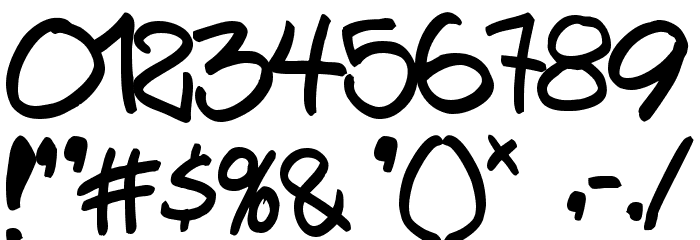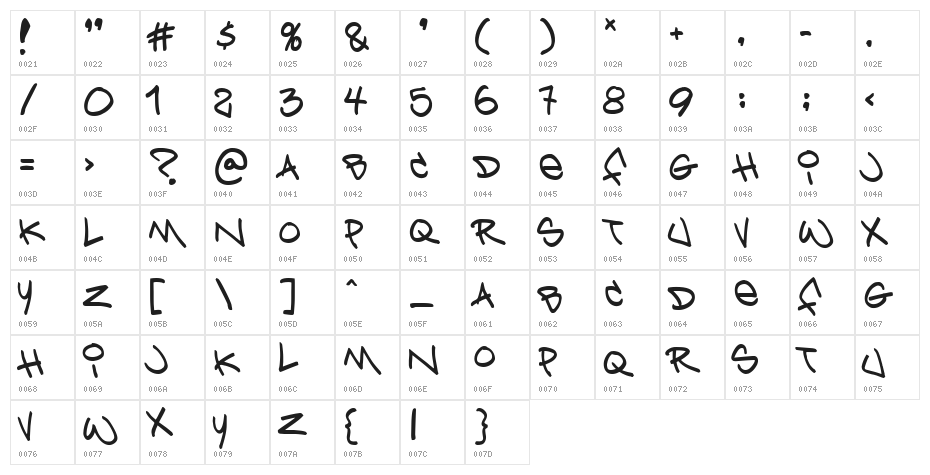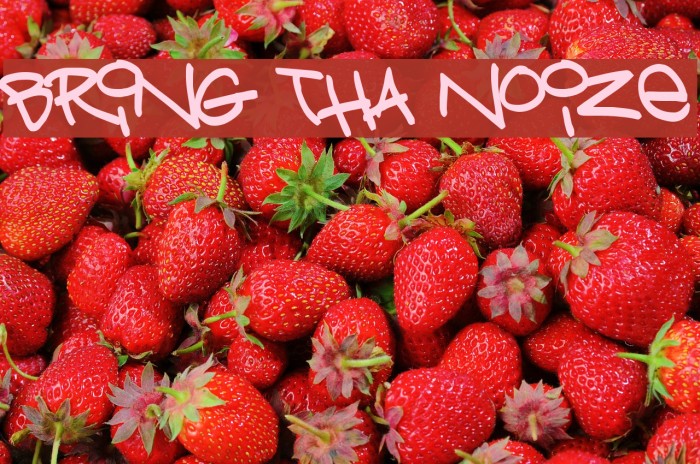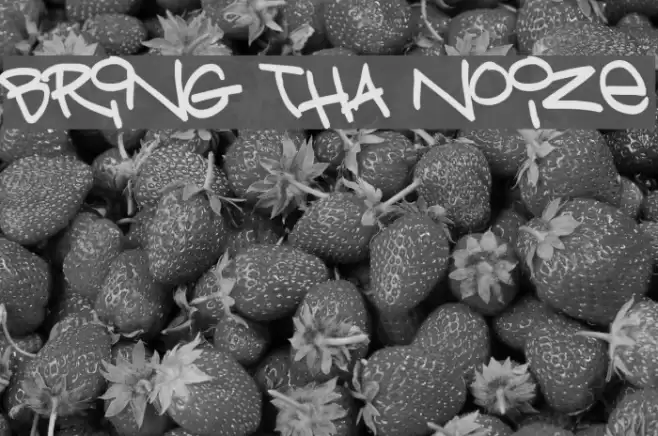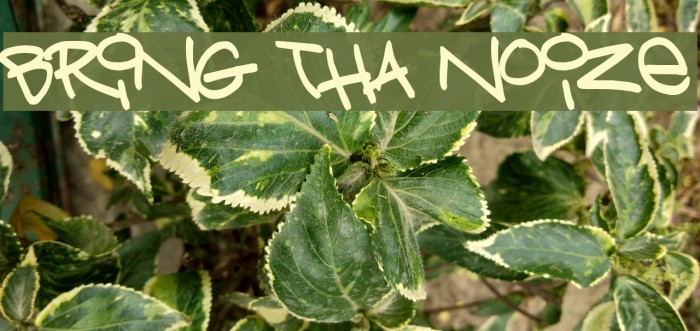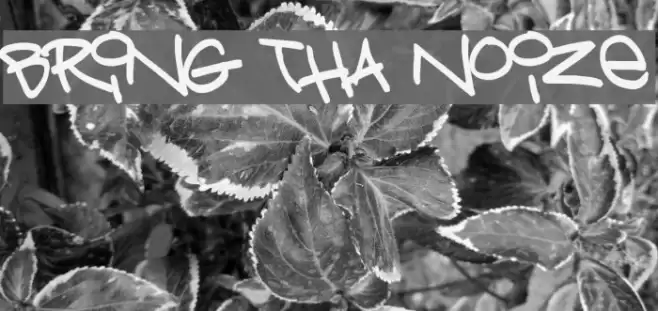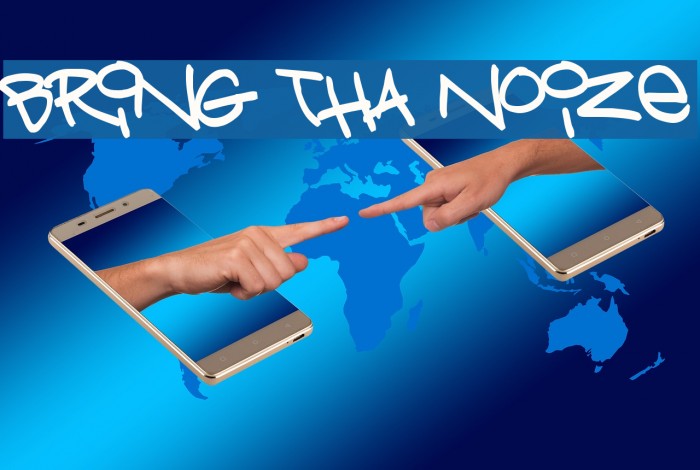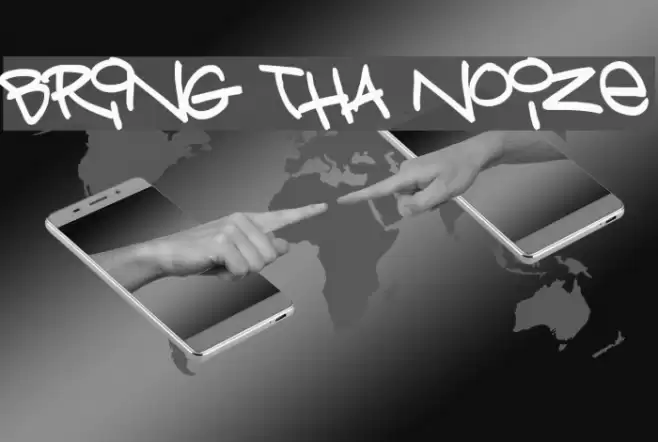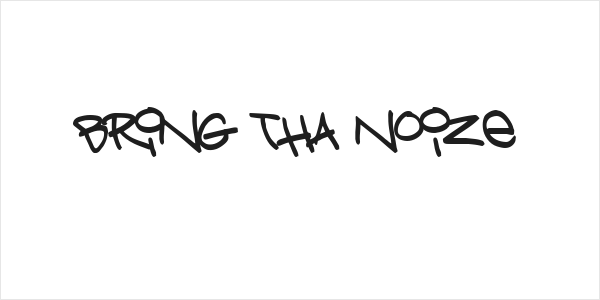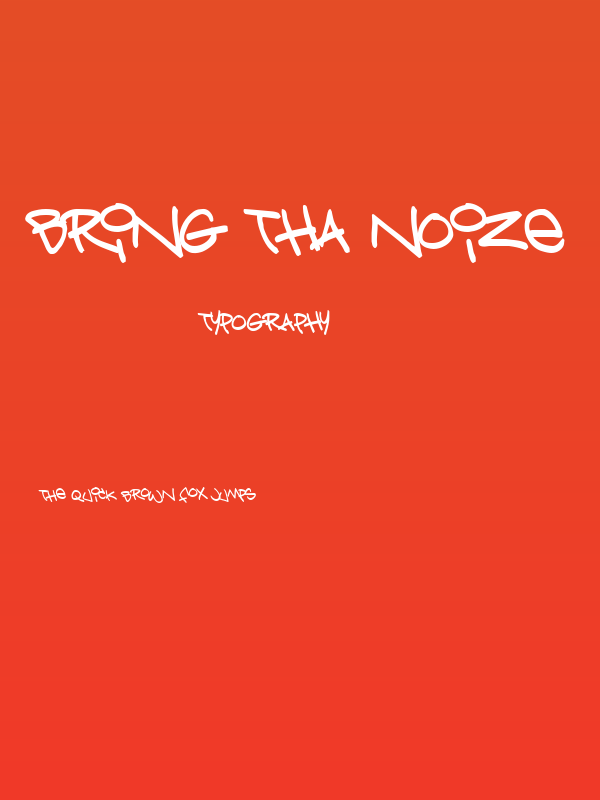
Bring tha noize Font
Bring tha noize Description
This font exudes a bold, urban graffiti style with its dynamic and energetic strokes. The characters are designed with a sense of movement and flair, featuring sharp angles and exaggerated curves. The uppercase and lowercase letters maintain a consistent style, with a playful and rebellious attitude. Numbers and special characters are equally expressive, adding to the font's overall street art aesthetic. The font's design is perfect for projects that require a sense of edginess and creativity, making it ideal for urban-themed designs, music album covers, and streetwear branding.
| Overall Style | Urban, Graffiti, Energetic |
| Use Case | Logos, Posters, Album Covers |
| Proposed Projects | Ideal for urban-themed designs, music album covers, streetwear branding, and graffiti art projects. |